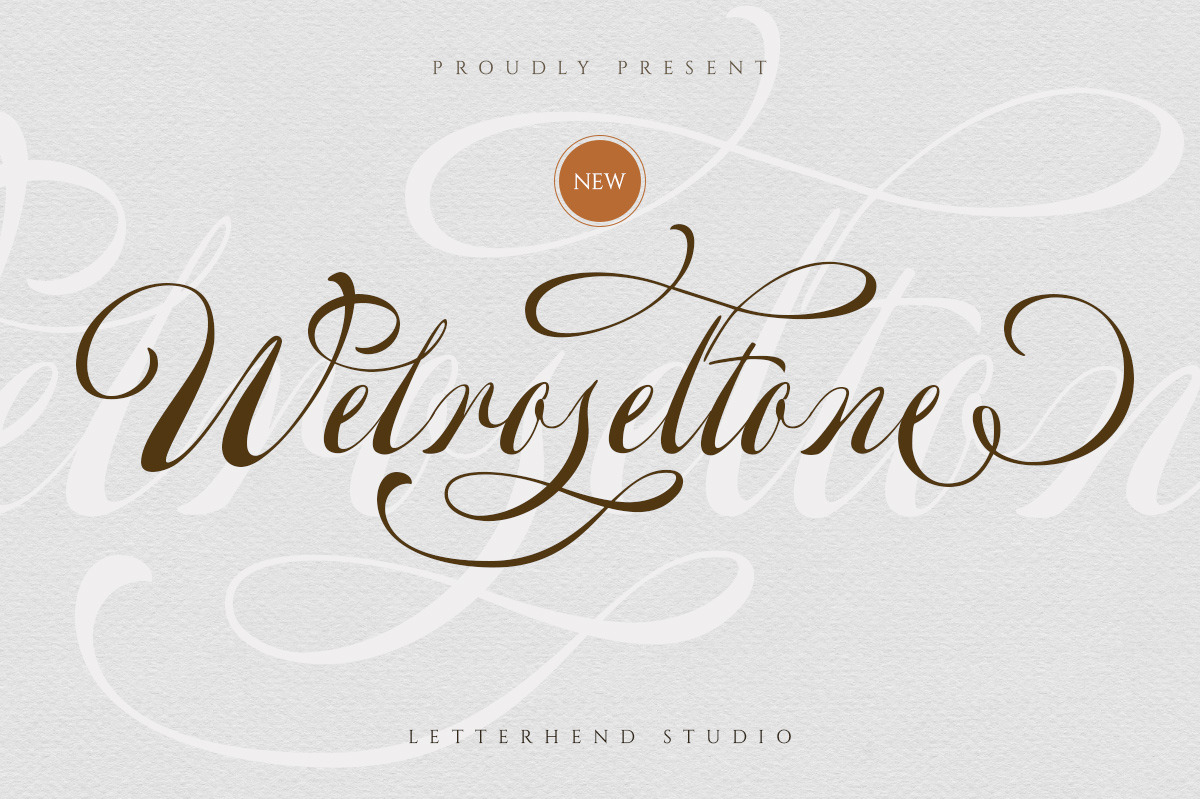
Welroseltone - Unique Script Font
Introducing, Welroseltone - a script typeface with beautiful unique swashes. This type of font perfectly made to be applied especially in logo, and the other various formal forms such as invitations, labels, logos, magazines, books, greeting / wedding cards, packaging, fashion, make up, stationery, novels, labels or any type of advertising purpose.
- alternates and swashes